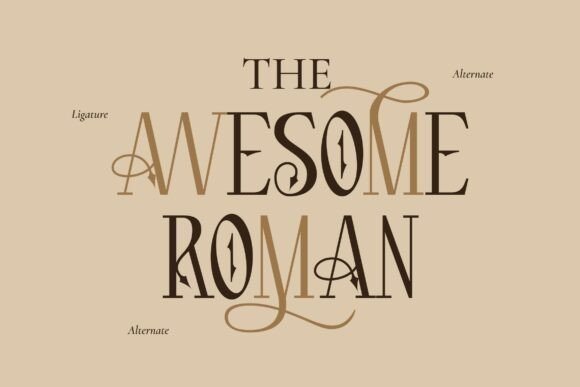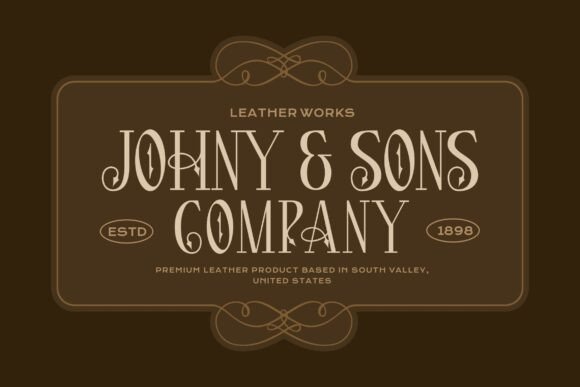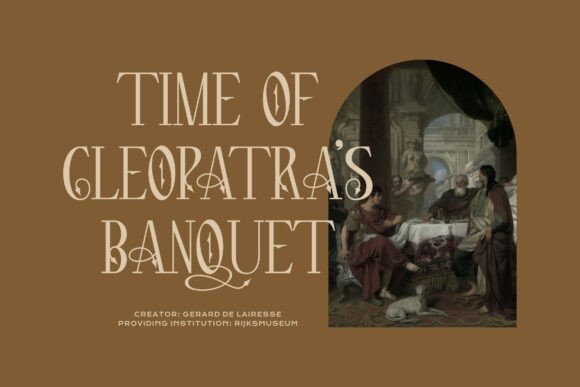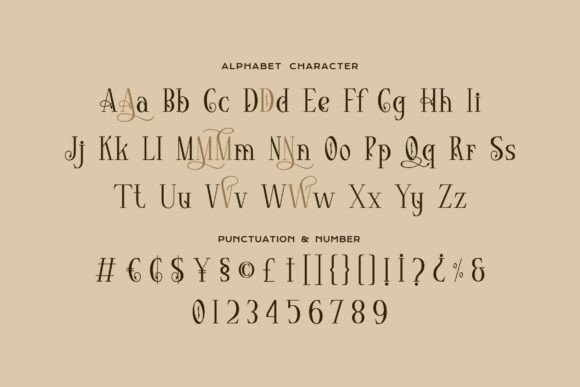
The Elegance of Depawson Font: A Designer’s Delight
I still remember the design project that led me to discover Depawson Font. I was working on a luxury branding project for a high-end boutique hotel, and I needed a font that exuded vintage luxury and sophistication. After hours of searching, I stumbled upon Depawson Font, and it was love at first sight. The perfect blend of classical Roman proportions and lush Art Nouveau flourishes had me hooked.
What Makes Depawson Font Special?
Depawson Font is a decorative Roman-style display typeface that screams “vintage luxury”. It blends classical Roman proportions with lush Art Nouveau flourishes, while also demanding you respect its curls and flourishes. The sharp serifs and vertical elegance make it look aristocratic but not too stiff. What gives it personality are the ornamental swashes, ligatures, and alternates – those swooping lines and dramatic extensions that turn ordinary characters into something that looks like it belongs on an antique leather goods sign, a 19th-century playbill.
Honest Review: The Good and the Quirks
- ✨ Elegant and sophisticated design that exudes luxury
- ✅ Perfect for packaging, editorial headlines, invitations, and vintage logos
- ⚠️ May not be suitable for body text or small font sizes due to its ornate design
- 🤔 Can be challenging to pair with other fonts due to its strong personality
The Story Behind Depawson Font
Depawson Font was inspired by the grandeur of ancient Rome and the opulence of the Art Nouveau era. The designer aimed to create a font that would evoke the feeling of luxury and sophistication, while also being elegant and refined. The result is a font that is both timeless and trendy, perfect for designers looking to add a touch of vintage glamour to their projects.
Q: What is Depawson Font best used for?
A: Depawson Font is perfect for packaging, editorial headlines, invitations, vintage logos, boutique brands, classy cafés, artisanal goods, ornate signage, or Cleopatra’s party invitations.
Q: Is Depawson Font PUA encoded?
Q: Can I use Depawson Font for body text?
A: While Depawson Font is beautiful, it may not be suitable for body text or small font sizes due to its ornate design. It’s best used for headlines, titles, or display text.
Q: Can I pair Depawson Font with other fonts?
A: Yes, but be careful when pairing Depawson Font with other fonts. Its strong personality may clash with some fonts, so it’s best to choose a font that complements its elegance and sophistication.